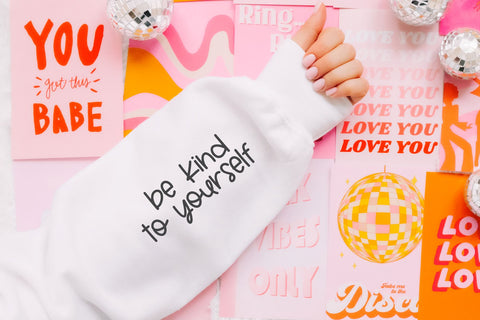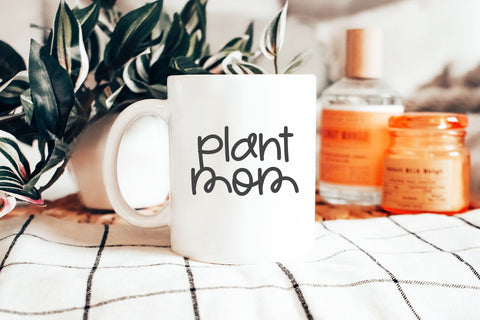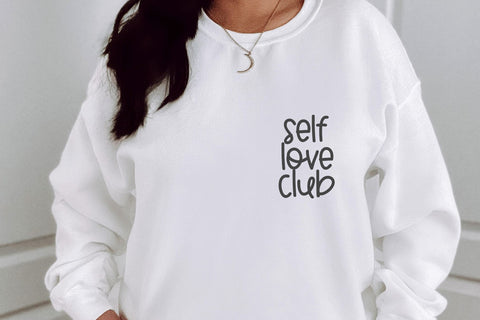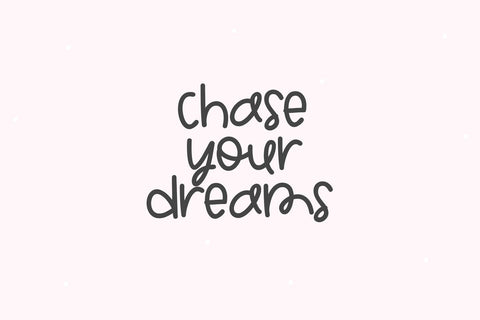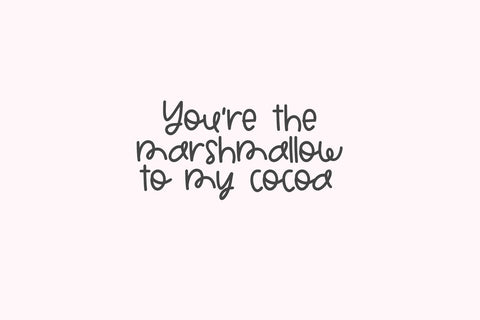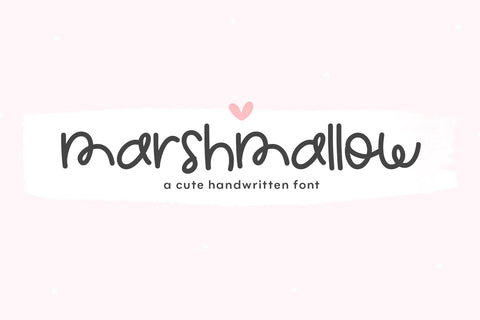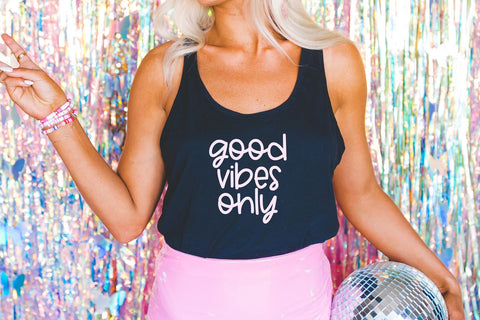
Marshmallow - Cute Handwritten Font
Marshmallow is a fun handwritten font.
This font is perfect for logos, svg files, shirts, quotes, goodnotes, procreate, teachers, mugs and more!